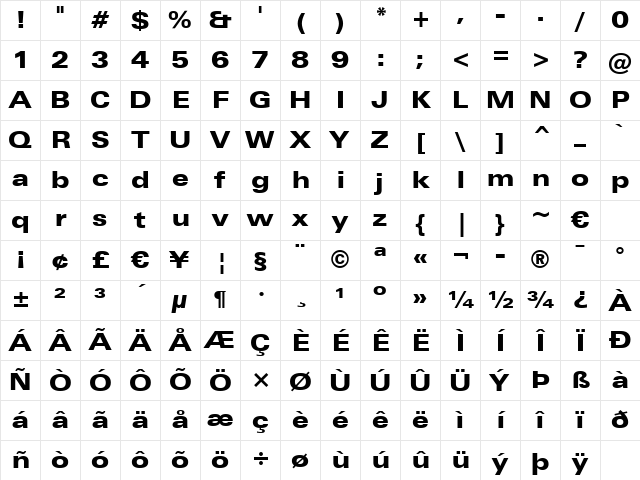
Complete Zurich BlkEx BT Black glyph index. Displaying only characters natively supported by Zurich BlkEx BT Black font.
Zurich BlkEx BT is a composed and adaptable typeface that performs quietly and consistently across a wide range of design contexts.